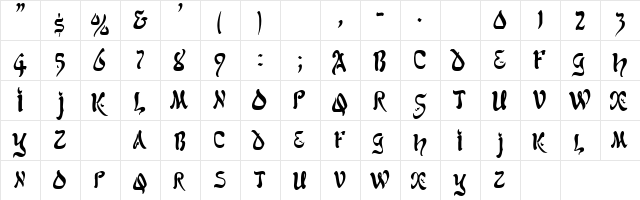
SolomonCondensed Regular
Design Context for SolomonCondensed Typeface
SolomonCondensed is a composed and adaptable typeface that performs quietly and consistently across a wide range of design contexts. The condensed width makes it efficient for tight spaces without sacrificing legibility.